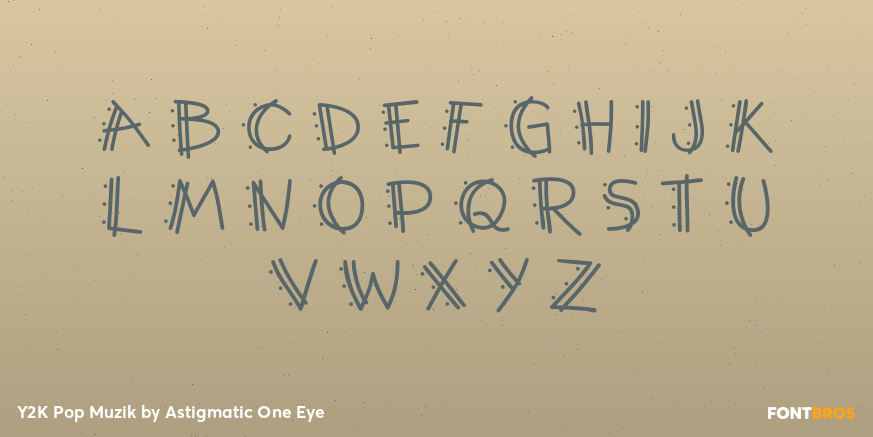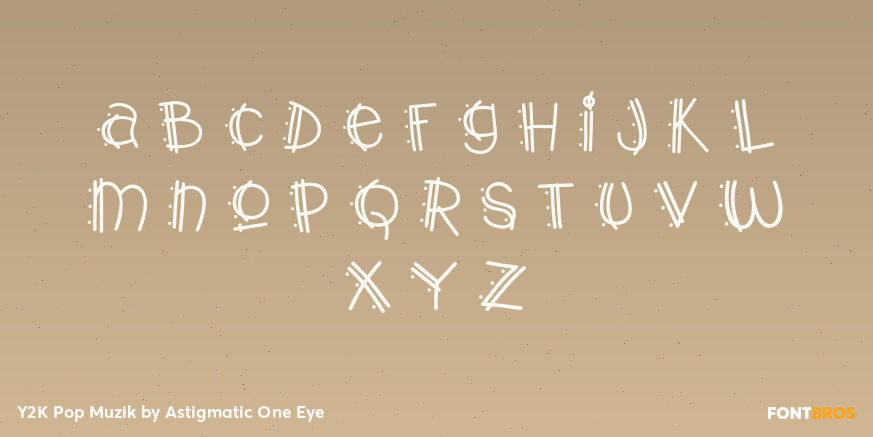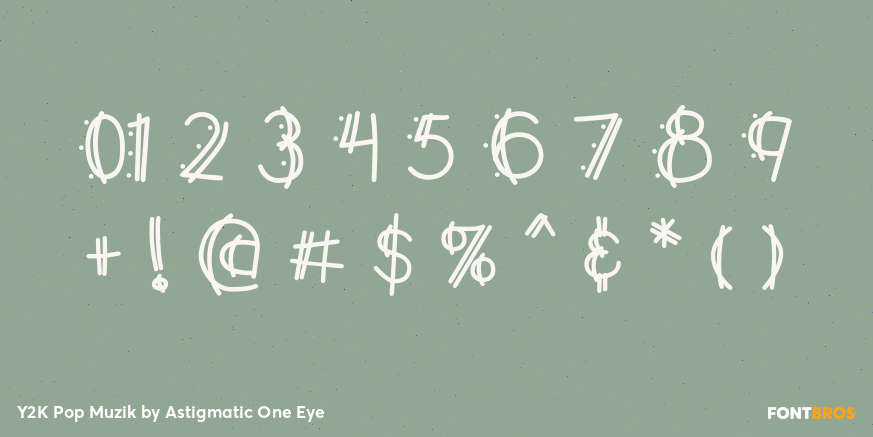
Y2K Pop Muzik
Font Family by Astigmatic One Eye
The Y2K PopMuzik Family was created as a tribute to Patricia Lillie's Poptics font sets, a wonderful grouping of funky offbeat typeface that are alot of fuel for inspiration. It was also created just in time for a Y2K font contest, thus the Y2K tag. In the end, the font lost because it wasn't seen a very Y2K, as the Y2K ideal seemed techno. It still ranked well for a non Y2K font, as a popular choice anyways. Even getting some comments from Creative Pro/Extensis' Mark Neiman Ross, "My second favorite is Popmuzik. It's a usable headline, and can work for small bursts of body copy. It bounces, but it's still legible." Get with the PopMuzik stylings today!